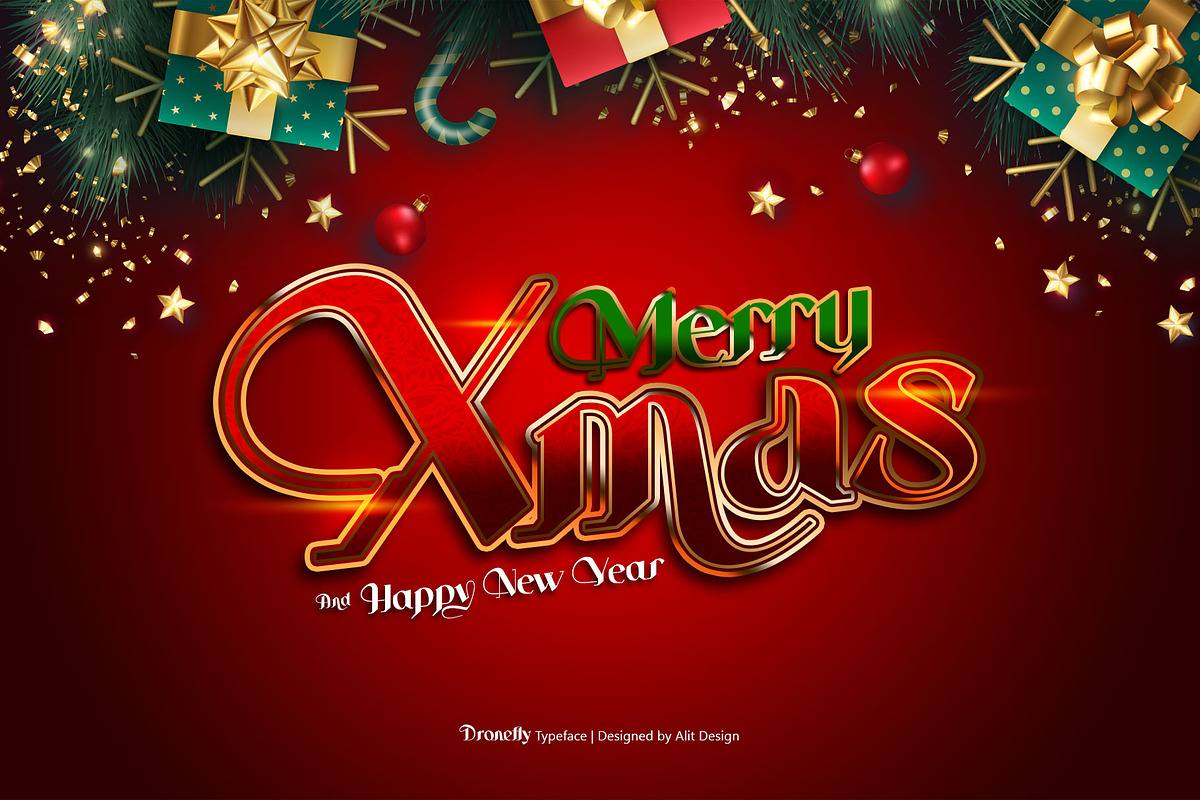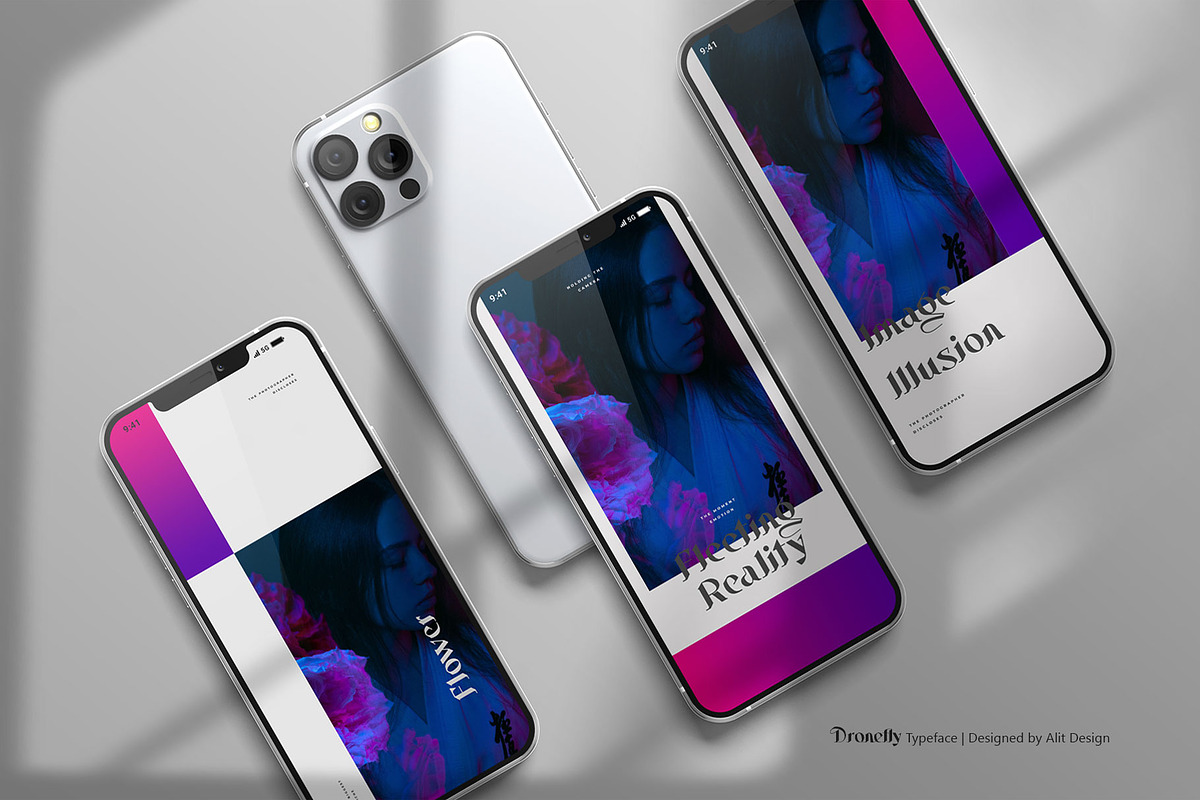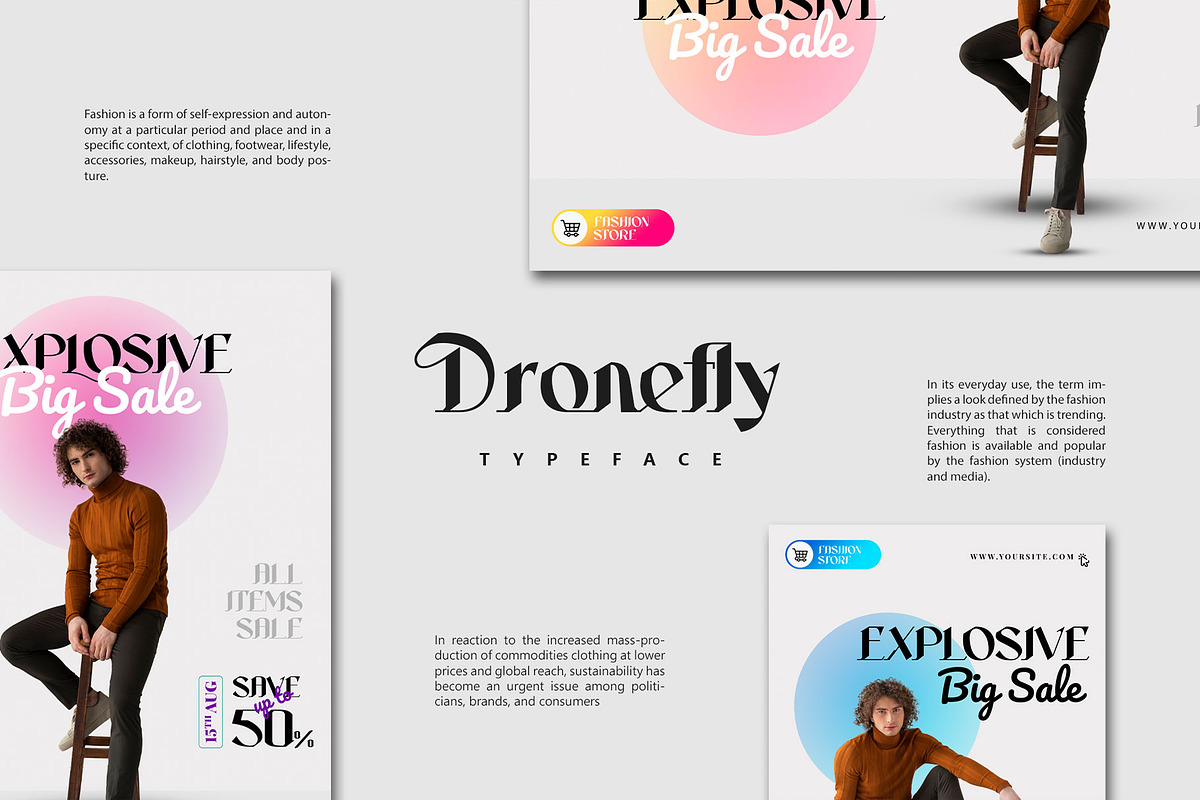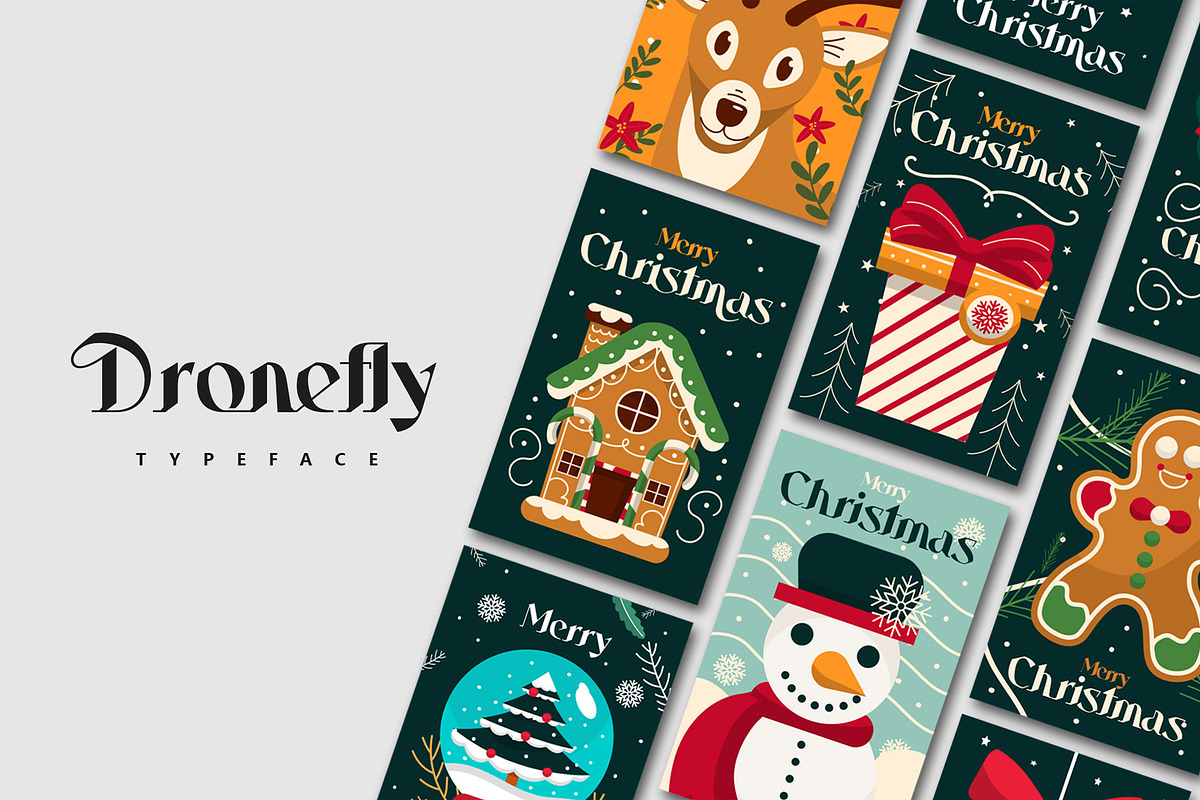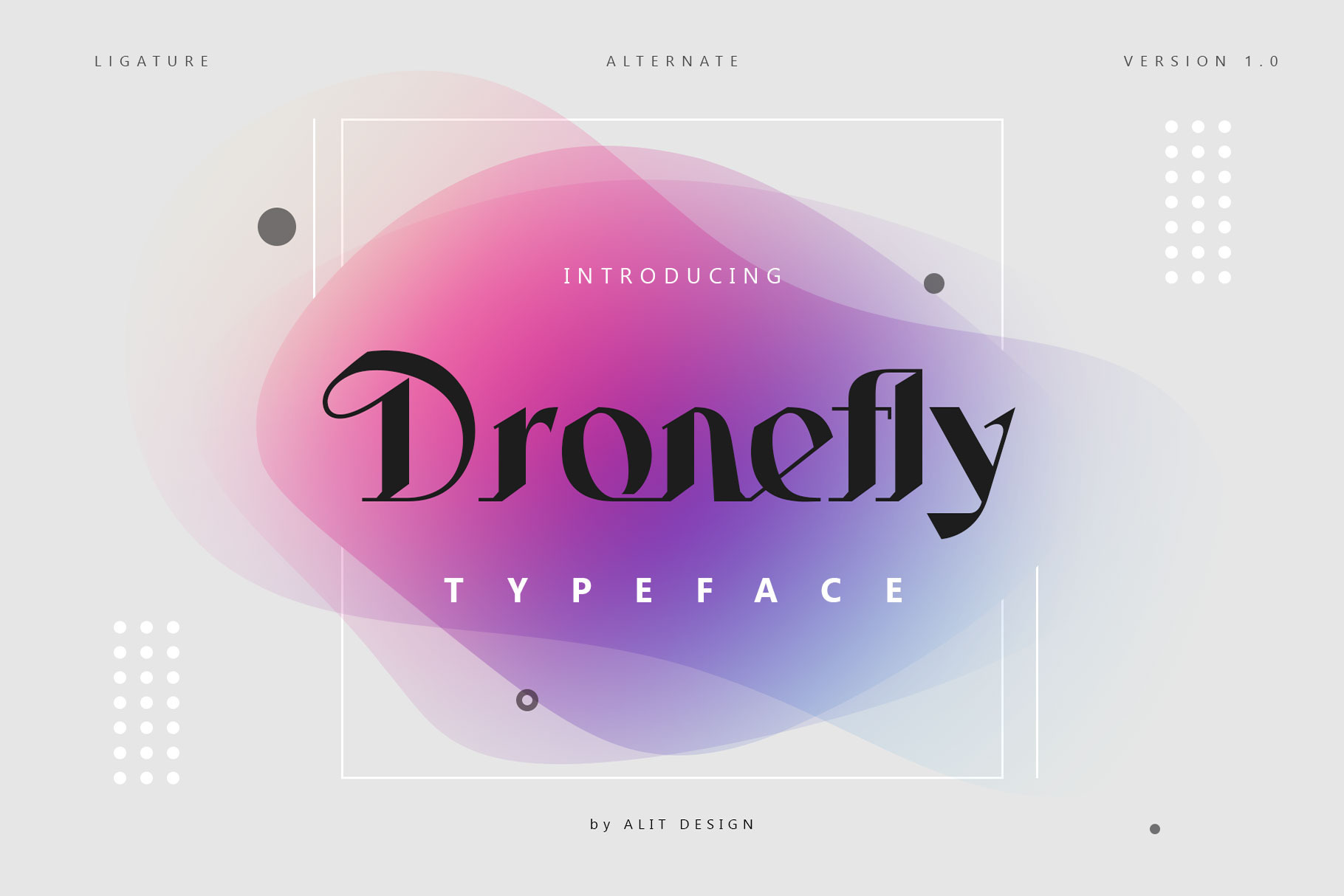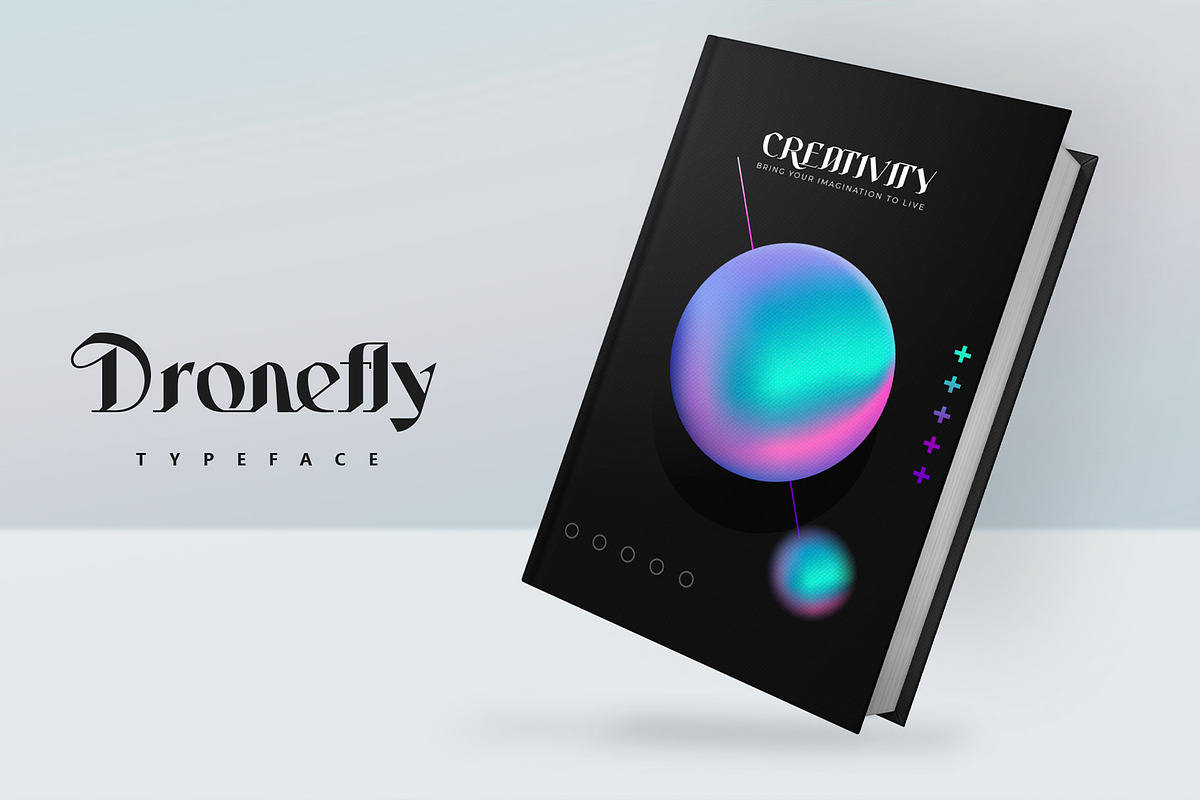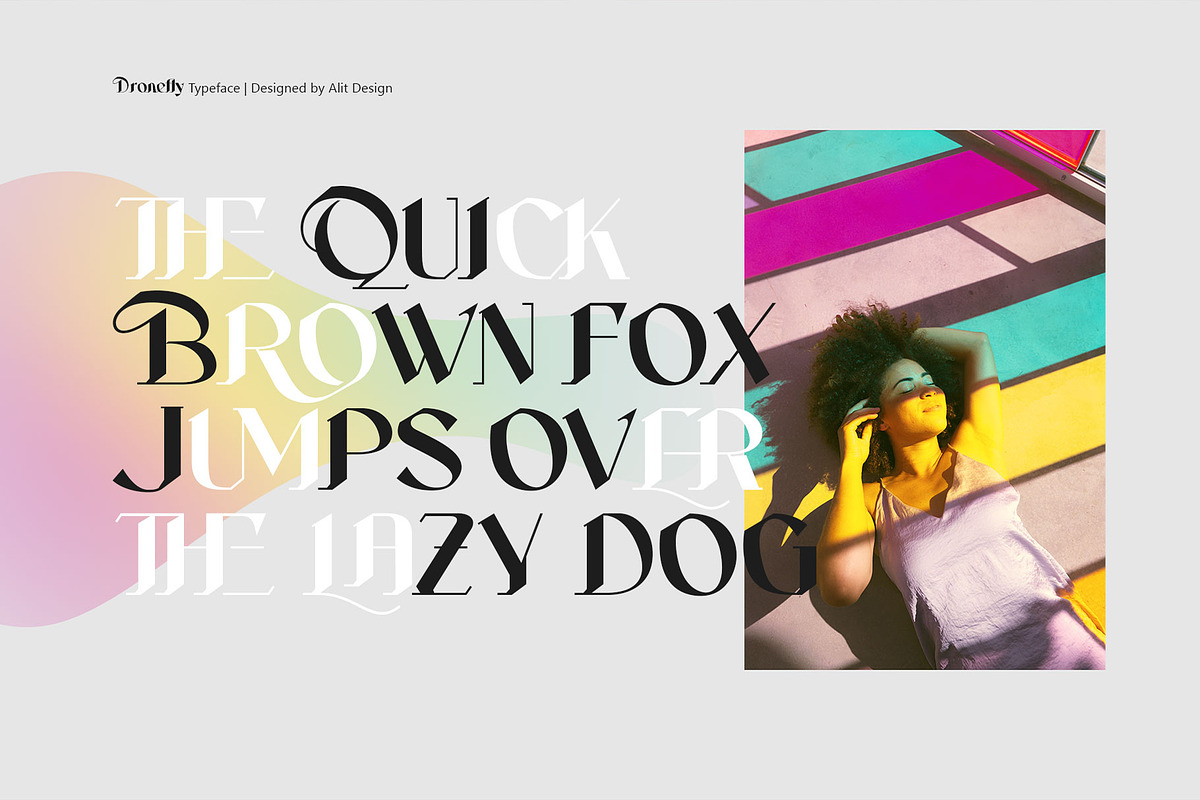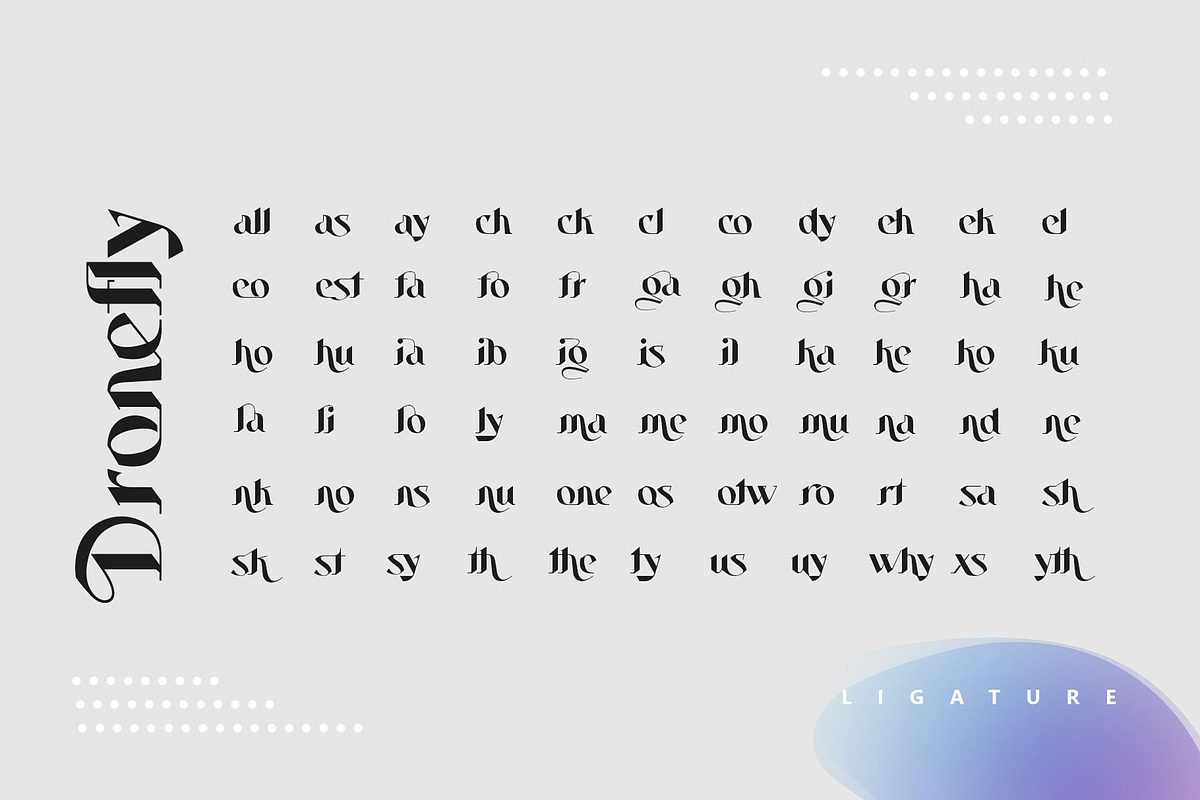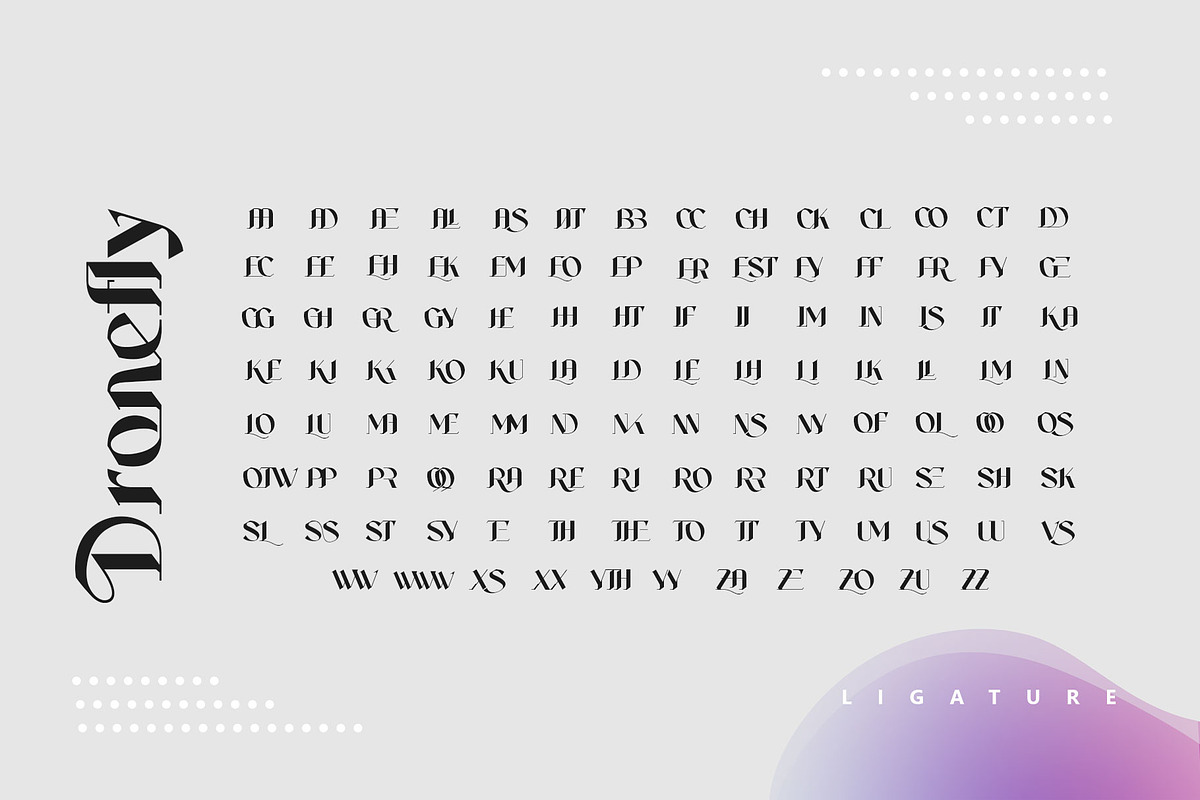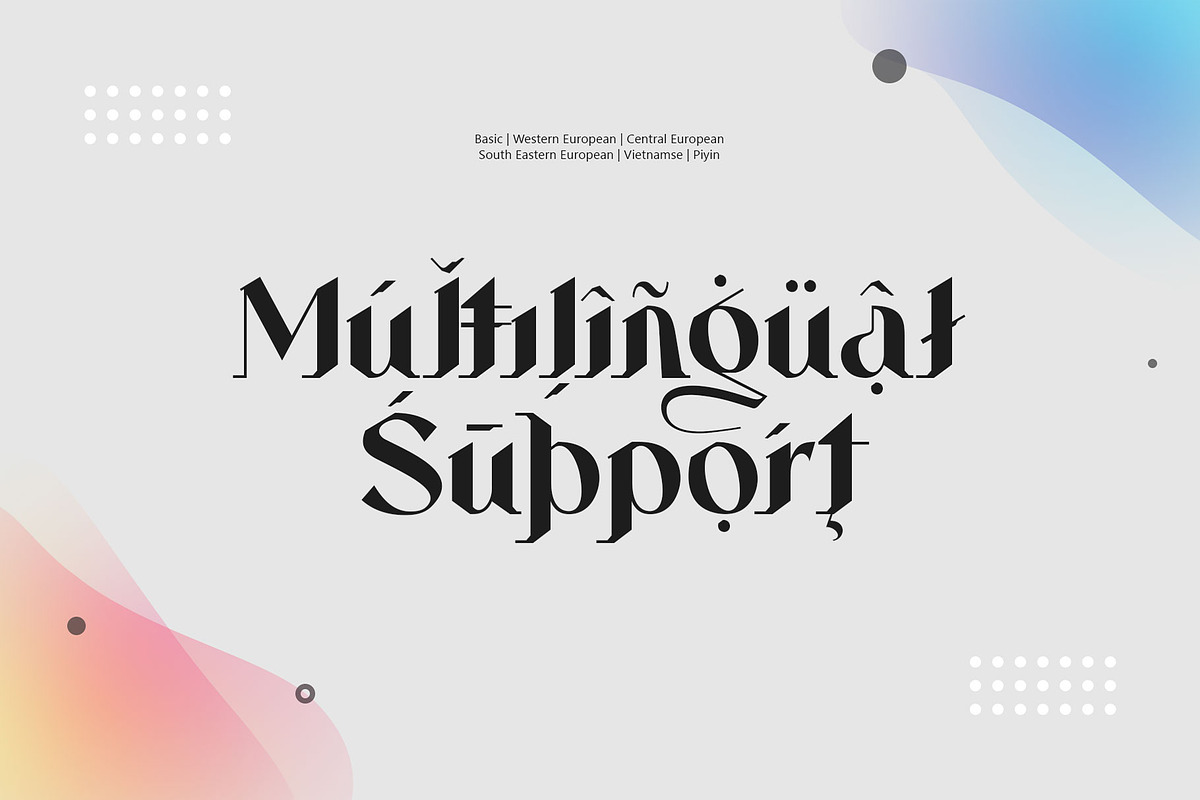
Dronefly Typeface
Modern Serif font with alternate and unique style, a display font in a elegant and bold style that makes your designs unique and distinctive.